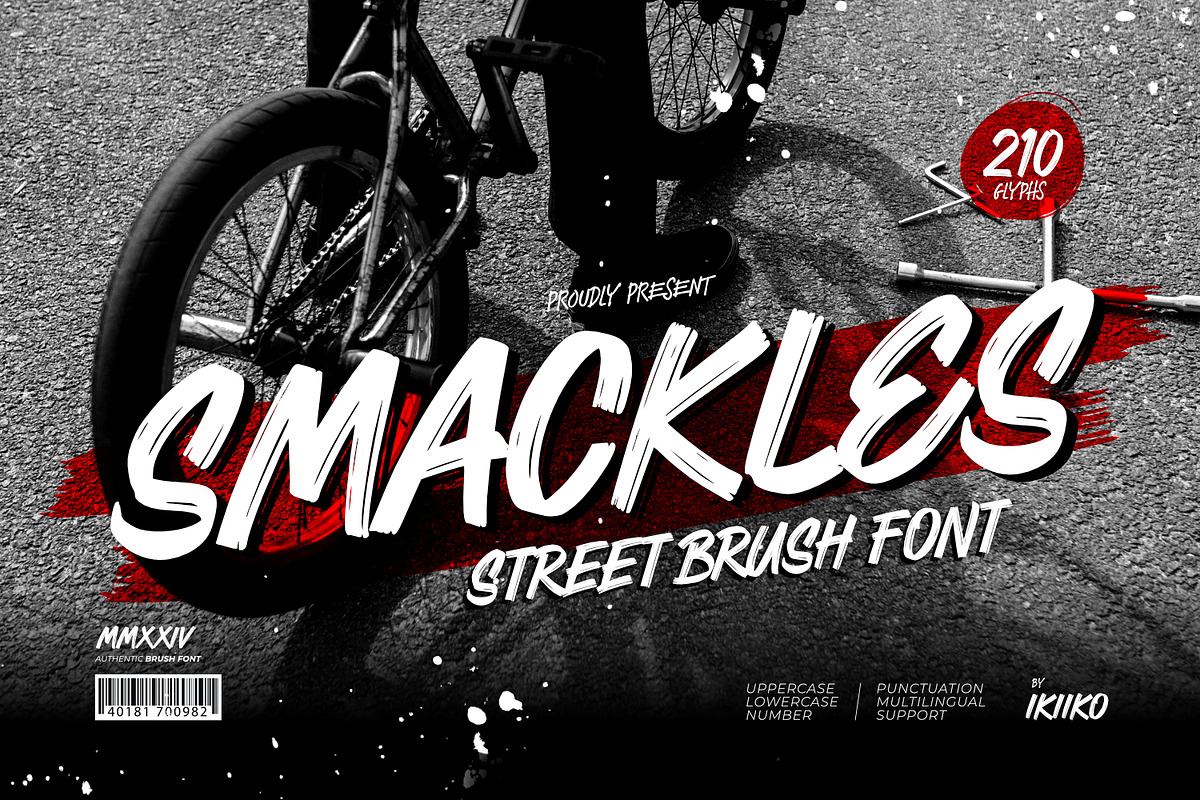
Smackles - Street Brush Font Free Download
Smackles - Street Brush Font Free Download is a gritty and expressive typeface inspired by street art and graffiti culture. With its bold brush strokes and raw, urban feel, it’s perfect for posters, album covers, streetwear branding, and edgy social media content. Please note that you must purchase this font for commercial use, but it is available as a free download for testing purposes. Add an authentic, rebellious touch to your designs with Smackles - Street Brush Font Free Download, and let your typography speak with boldness and urban flair.